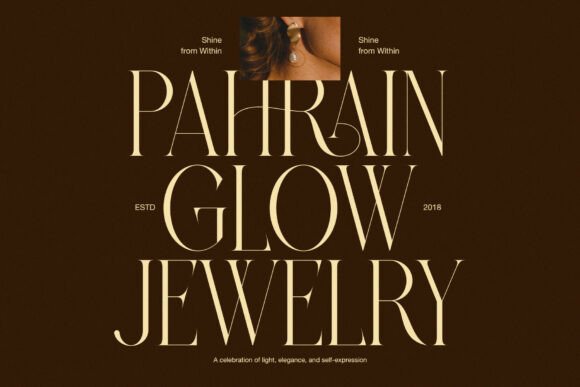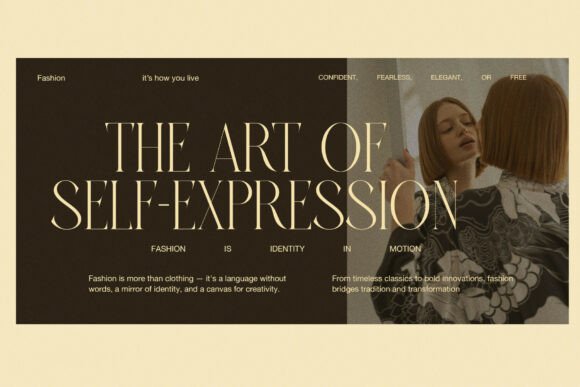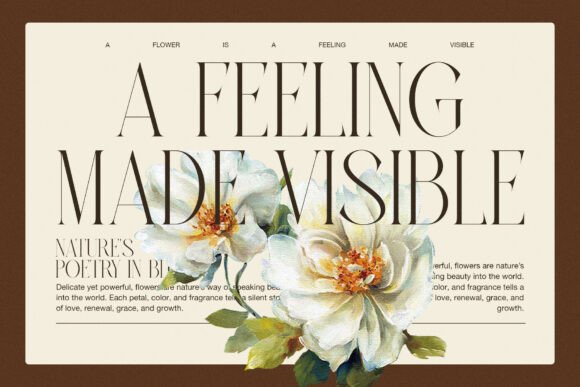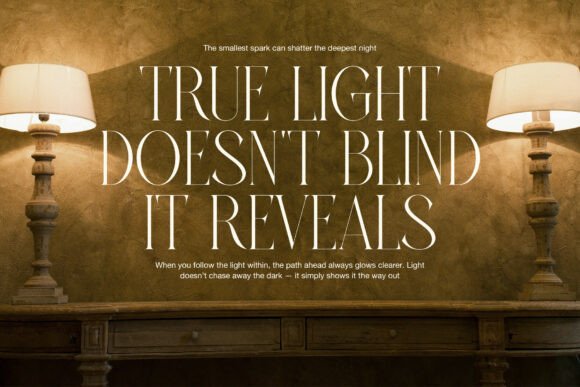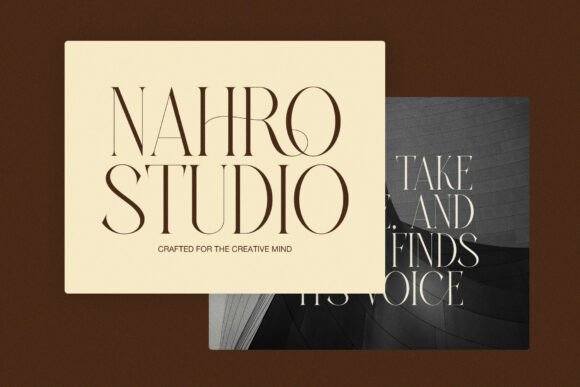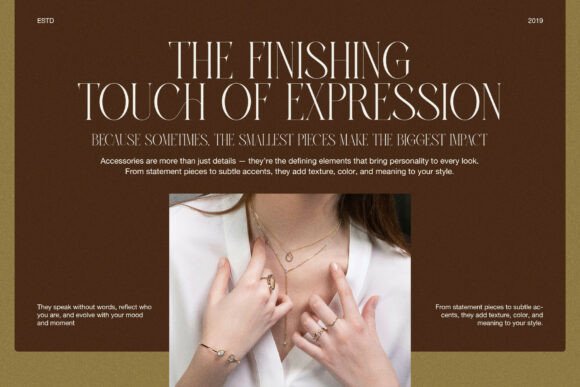
Erhjan Elegant Serif Font – Timeless Elegance for Modern Brands
In the world of typography, a well-crafted font can elevate a brand’s visual identity and make it stand out in a crowded market. Introducing Erhjan Elegant Serif Font, a modern serif typeface designed to bring a touch of class and sophistication to every project. This elegant font seamlessly blends traditional serif style with clean, stylish curves, making it an ideal choice for brands that want to appear professional and refined.
Design and Features
Erhjan Elegant Serif Font boasts soft proportions and refined letterforms, which give it a distinctive and premium feel. One of its standout features is the inclusion of functional ligatures, adding a unique and attractive touch to any design. These ligatures not only enhance the aesthetic appeal of the font but also provide a creative way to add visual interest to text. With Erhjan, designers can create stunning visual effects that elevate their work and leave a lasting impression.
Versatility Across Industries
The versatility of Erhjan Elegant Serif Font is one of its most compelling advantages. This font is perfectly suited for a wide range of applications, from fashion labels and boutique branding to product packaging and editorial layouts. Its elegant and refined design makes it an excellent choice for:
- Fashion labels and luxury brands looking for a sophisticated and high-end feel
- Boutique branding and small businesses seeking to establish a unique visual identity
- Product packaging and labeling that requires a touch of elegance and refinement
- Editorial layouts and publishing projects that demand a high level of typographic excellence
- Website headers and digital marketing materials that require a professional and polished look
- Business cards, invitations, and promotional materials that need to make a lasting impression
Legibility and Readability
Erhjan Elegant Serif Font is not only visually stunning but also highly legible, whether in print or on screen. This makes it an excellent choice for both creative professionals and corporate designers who require a font that can perform well in various contexts. The font’s clear and refined letterforms ensure that text is easy to read, even at small sizes, making it perfect for body text, captions, and other applications where legibility is crucial.
Why Choose Erhjan?
Erhjan Elegant Serif Font offers a unique blend of elegance, sophistication, and versatility, making it an attractive choice for designers and brands looking to elevate their visual identity. Here are just a few reasons why Erhjan stands out:
- Timeless elegance: Erhjan’s classic serif design ensures that it will remain a stylish and relevant choice for years to come
- Professional and refined: The font’s soft proportions and refined letterforms give it a polished and premium feel
- Highly legible: Erhjan’s clear and refined letterforms make it easy to read, whether in print or on screen
- Versatile: The font is suitable for a wide range of applications, from fashion labels to editorial layouts
- Unique ligatures: Erhjan’s functional ligatures add a creative and attractive touch to any design
Erhjan Elegant Serif Font is a powerful tool for designers and brands looking to elevate their visual identity and create a lasting impression. With its timeless elegance, professional and refined design, and versatility across industries, Erhjan is the perfect choice for anyone seeking to add a touch of sophistication and class to their projects. Whether you’re a creative professional or a corporate designer, Erhjan is sure to become a valuable addition to your typographic arsenal.